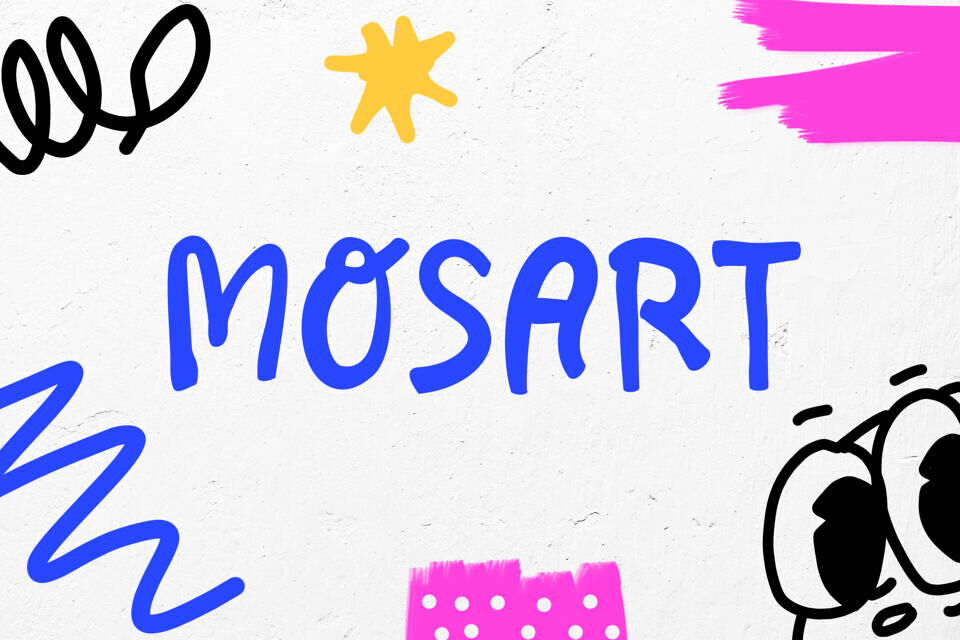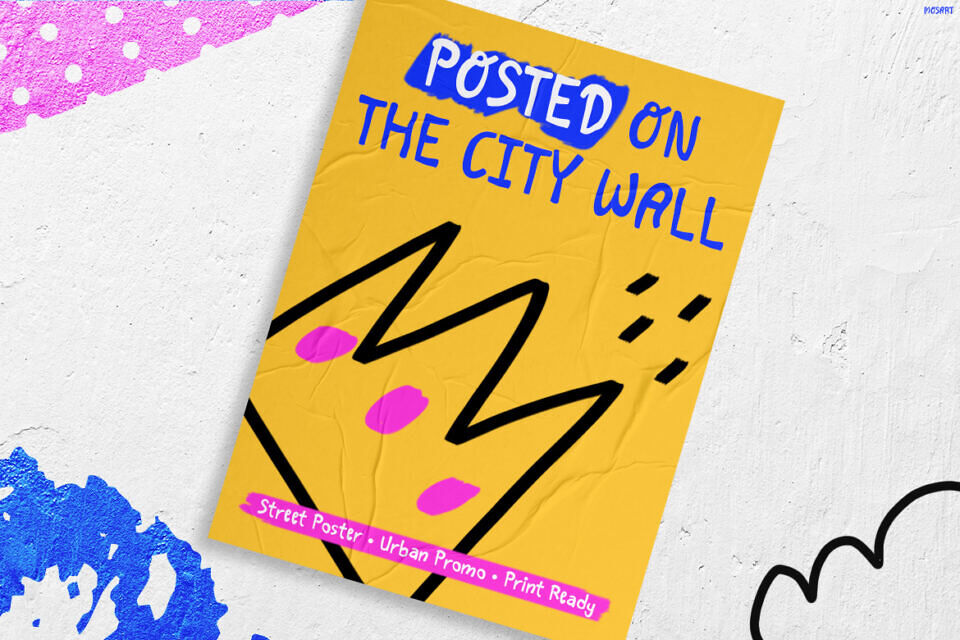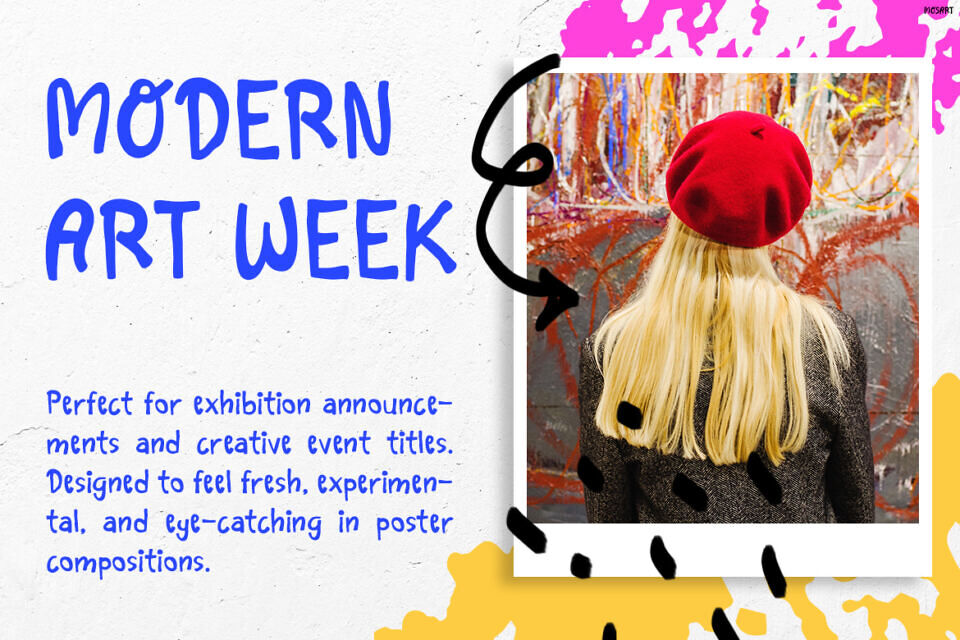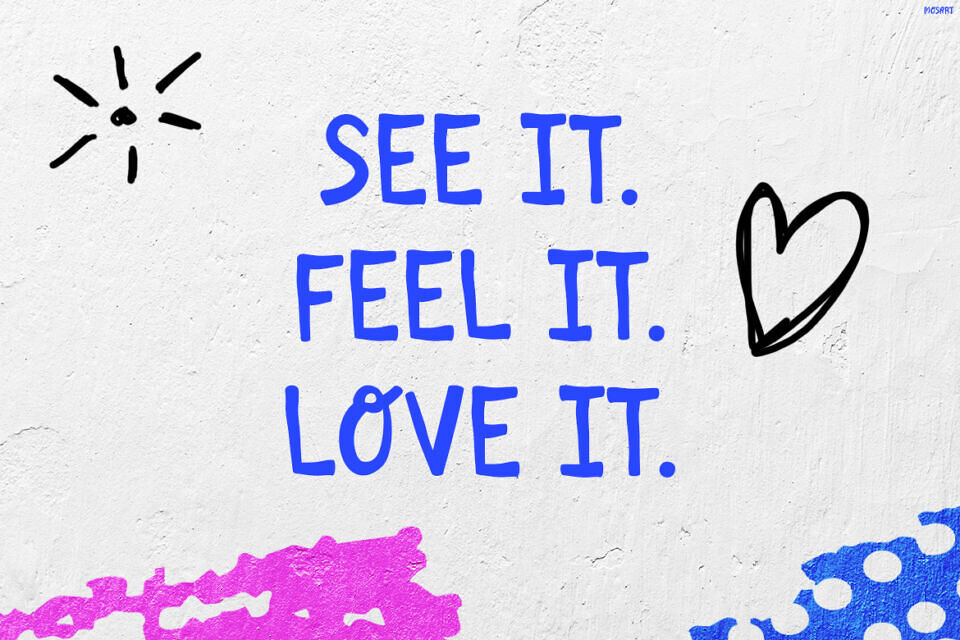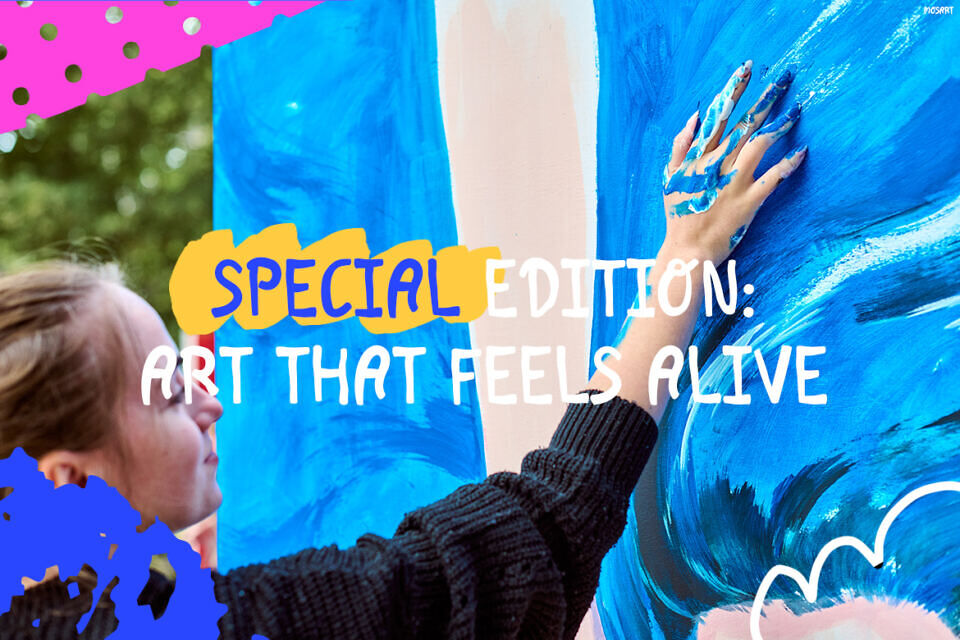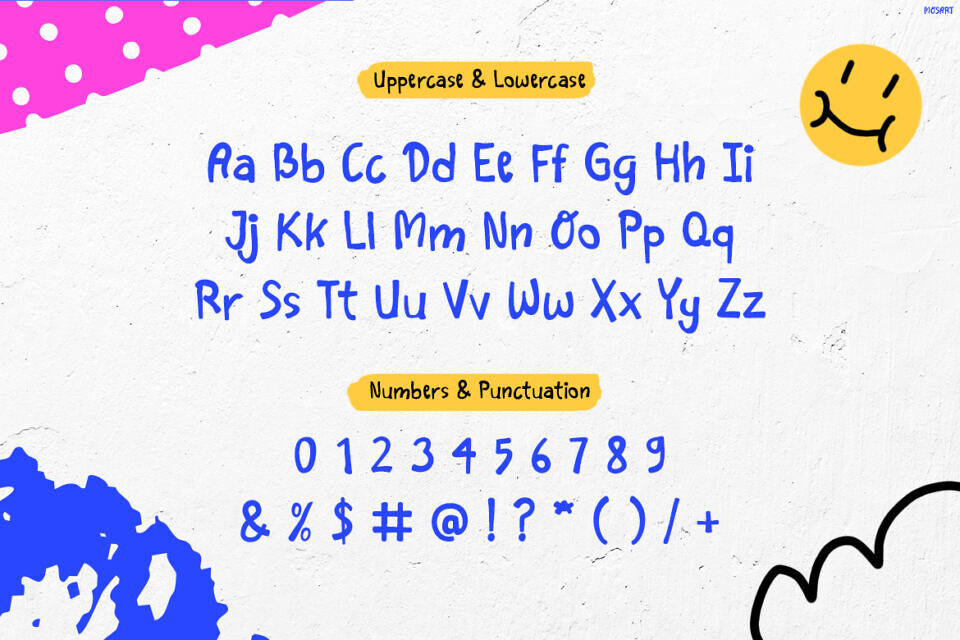
Mosart is a bold and expressive handwritten display font inspired by street art, doodle culture, and playful urban creativity. Designed with energetic strokes, imperfect lines, and artistic graffiti-style details, this font instantly creates a fun and rebellious visual impact.
Mosart combines youthful energy with modern artistic aesthetics, making every design feel alive, dynamic, and impossible to ignore. Unlike ordinary kids fonts, Mosart delivers a strong urban personality while still maintaining readability and versatility.